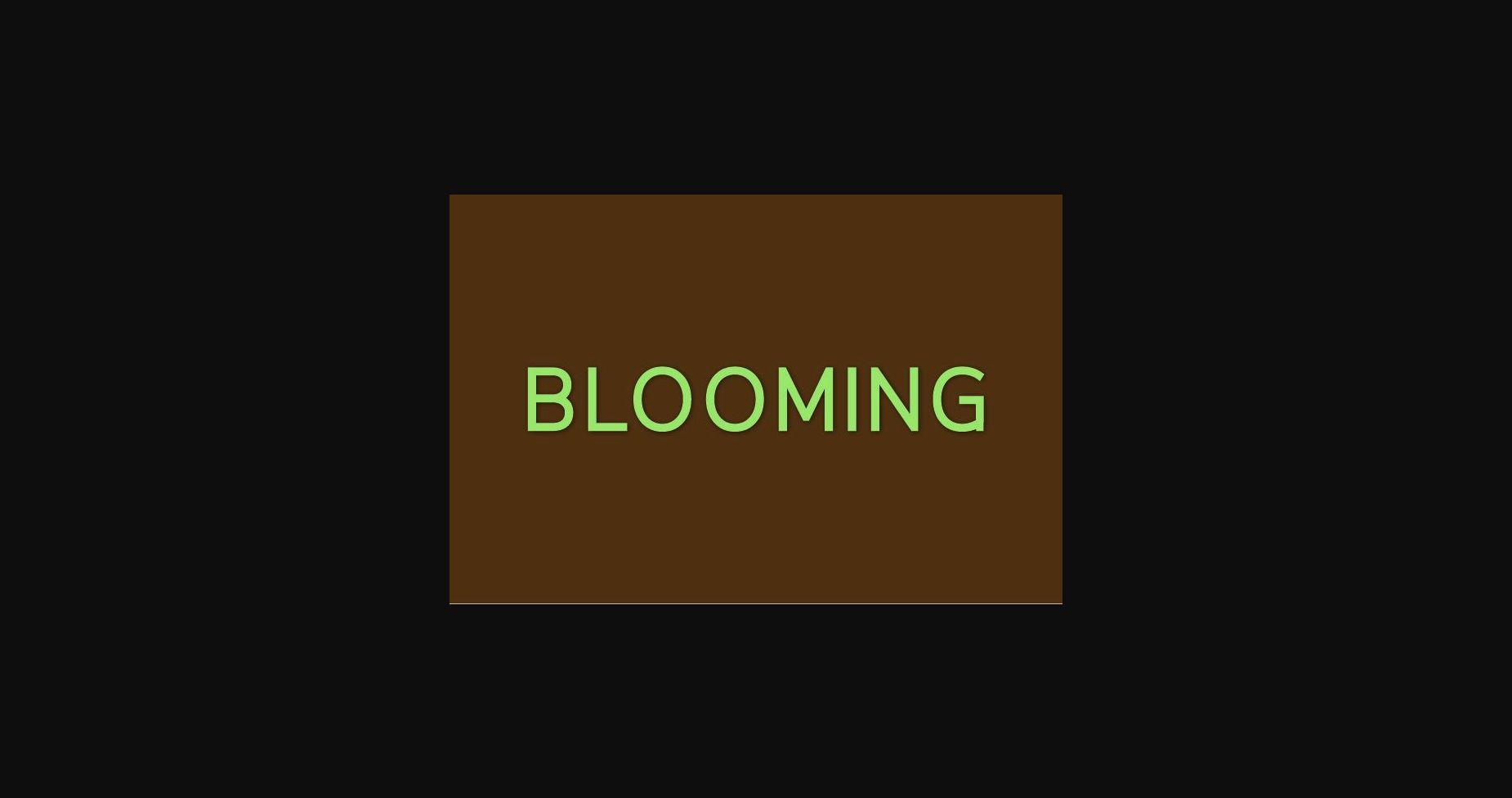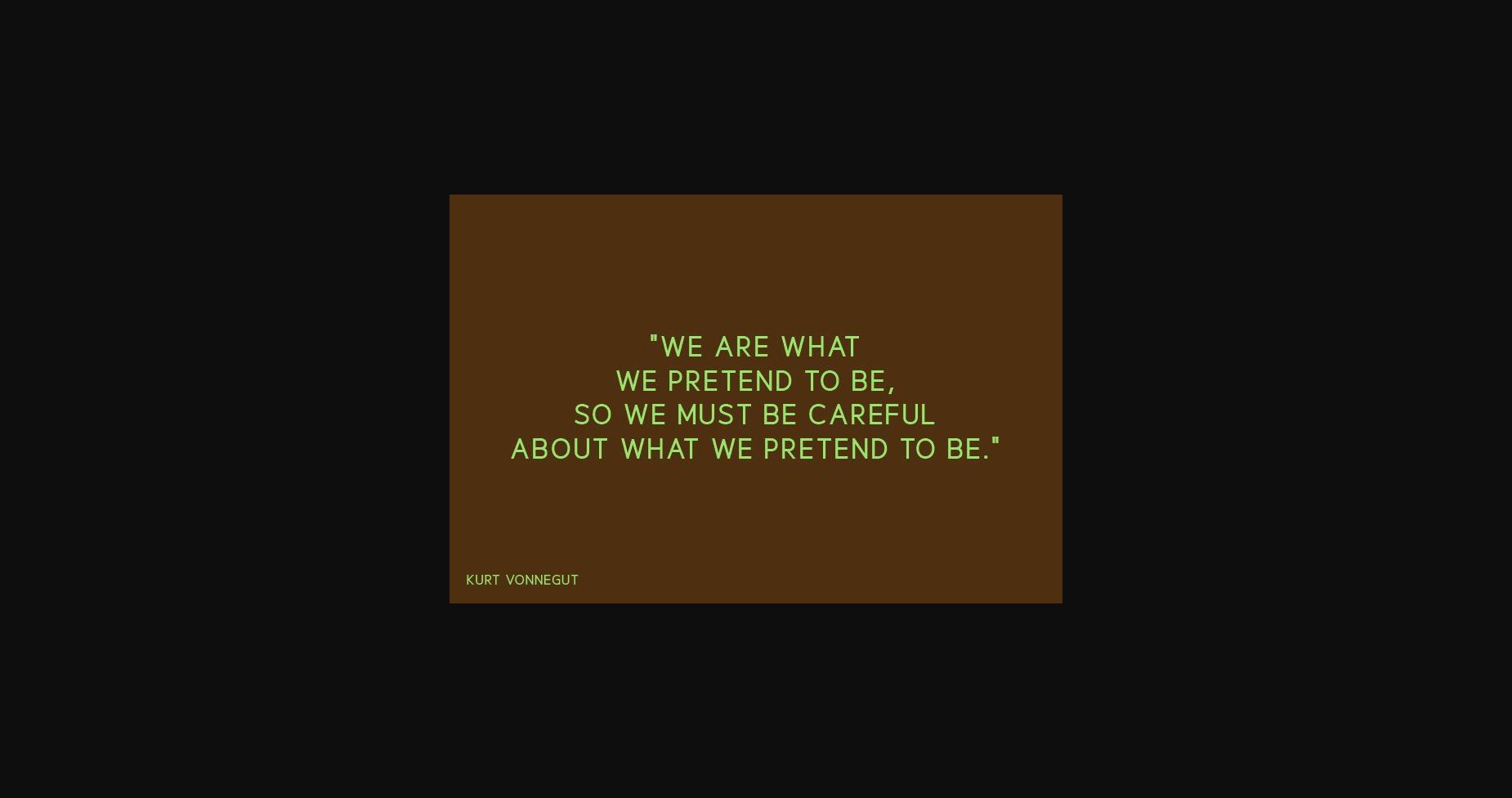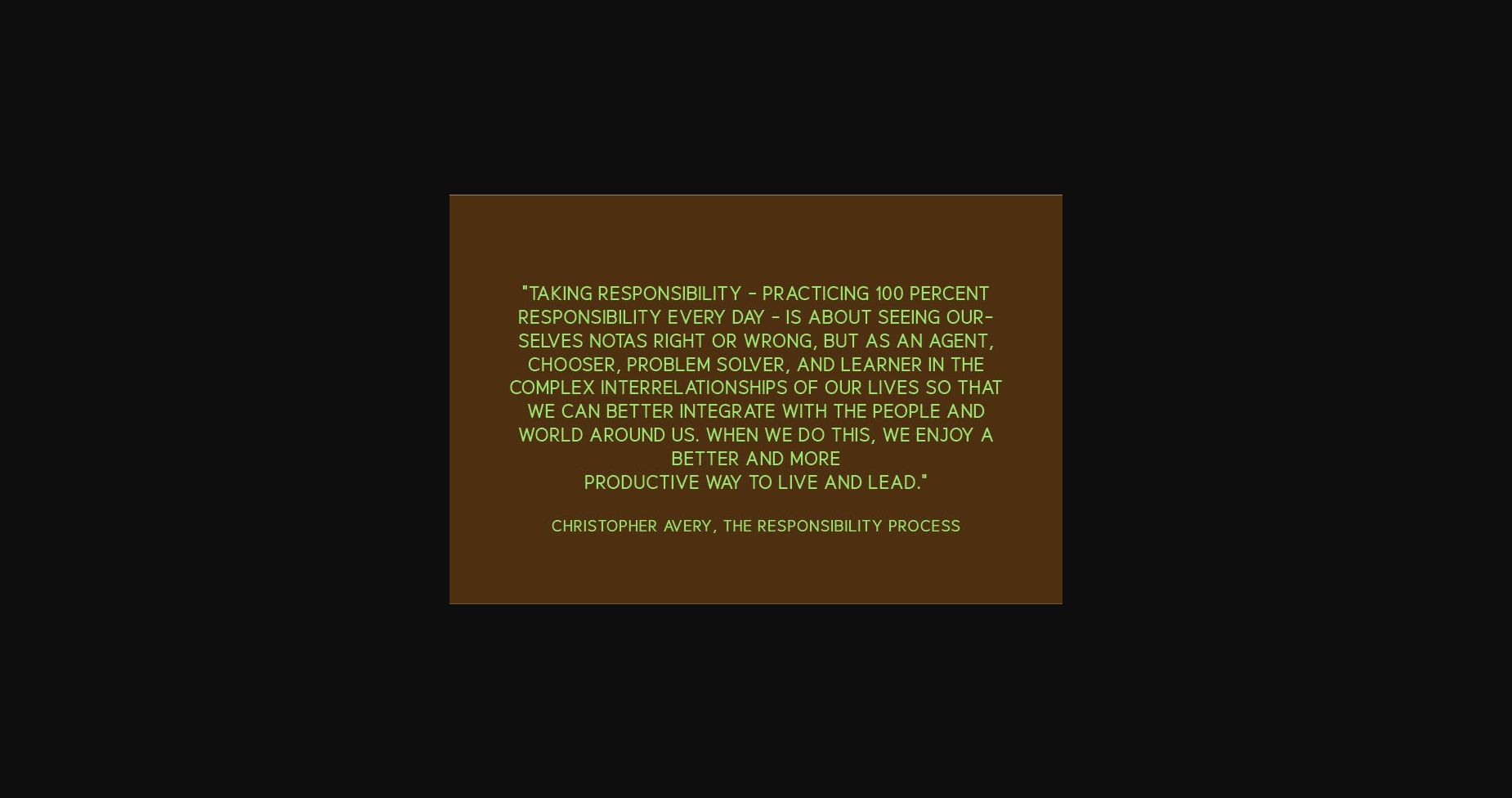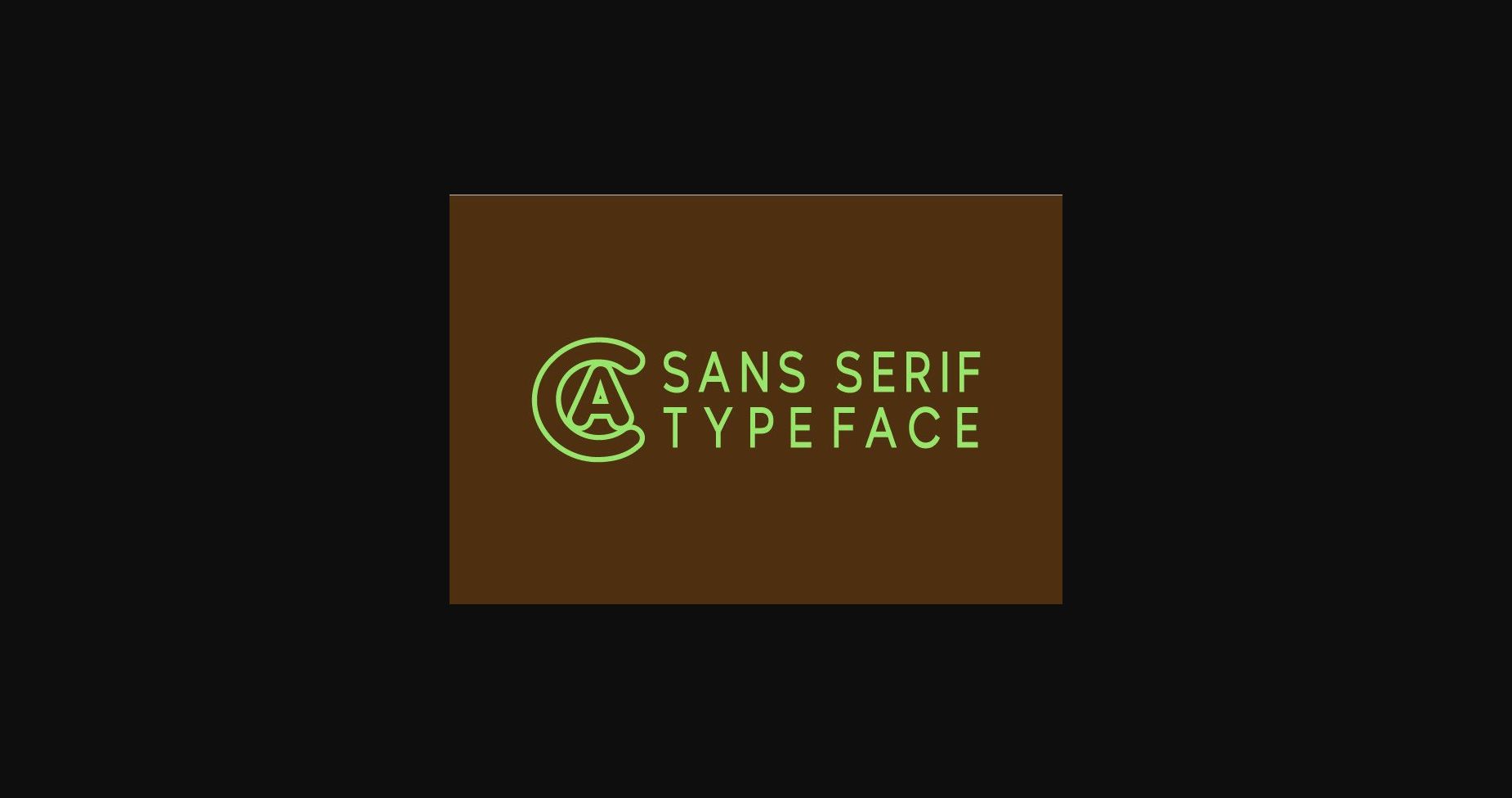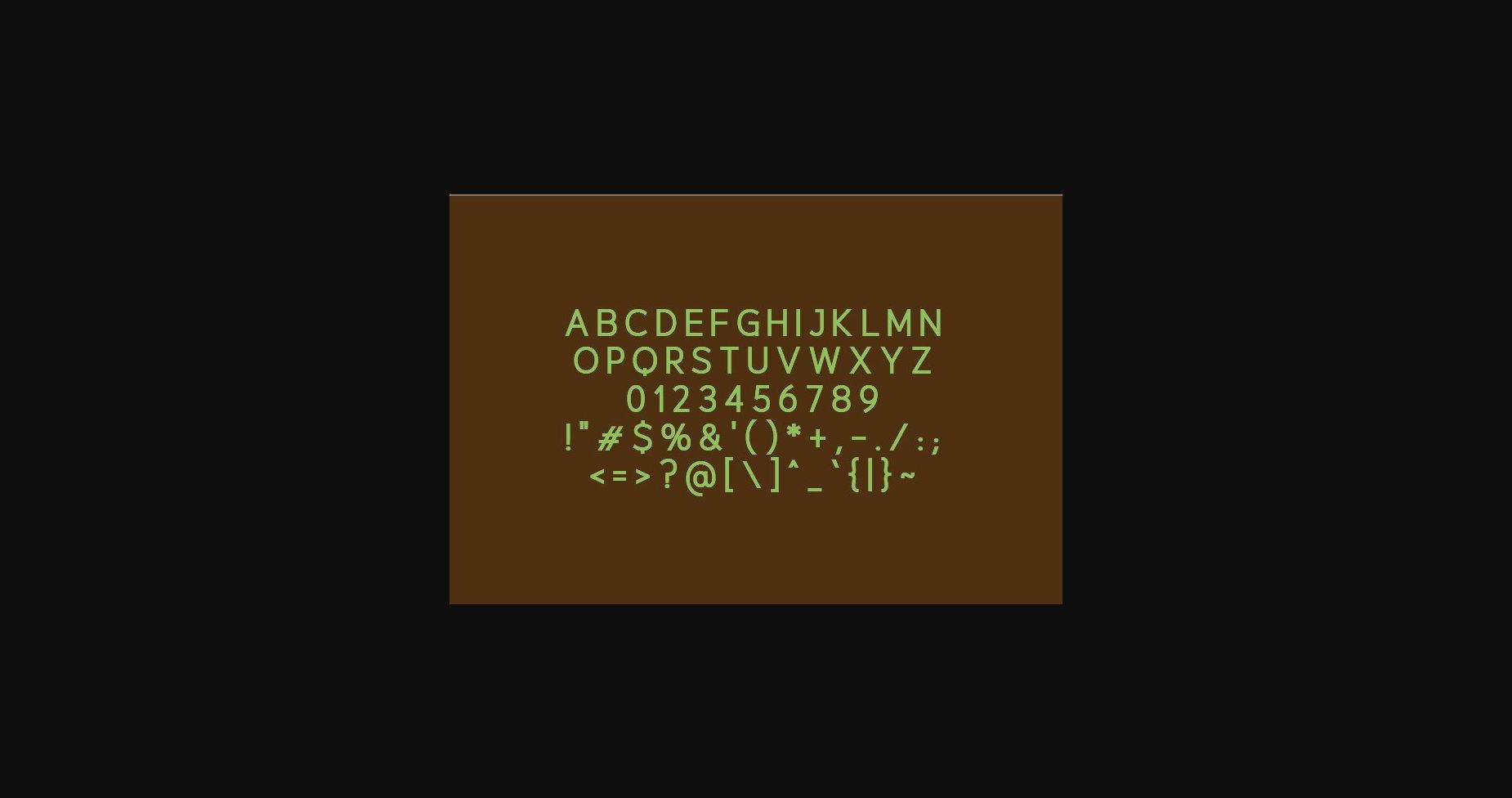
Blooming Font
About Blooming Font
Introducing Blooming, a modern, classy sans serif typeface. A sans serif typeface that contains upper characters, numbers 0-9 and a range of punctuation and symbols. An extremely versatile font, perfect for logos, weddings, invitations, quotes, advertisements, print, magazines, and more!